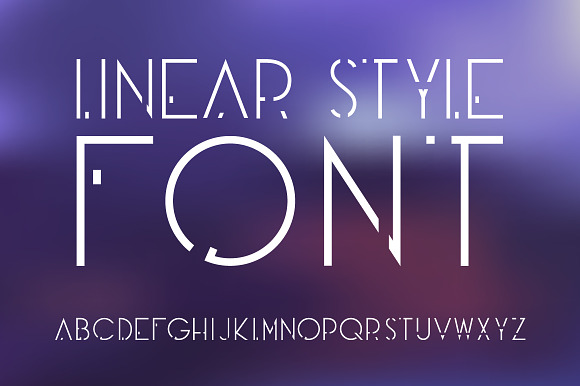
Futuristic OTF vintage label font.
Why Futuristic OTF vintage label font. is worth a look
Futuristic OTF vintage label font. by Fractal fonts & graphics fits naturally into Branding, posters, packaging, typography.